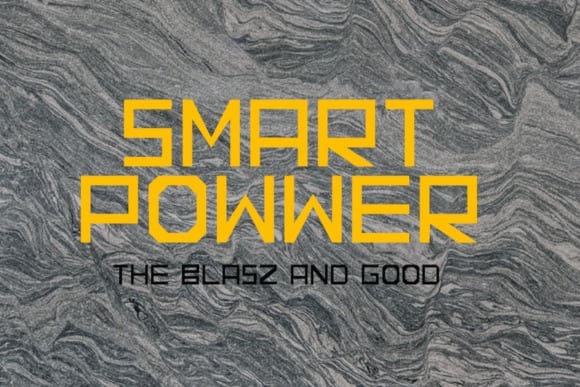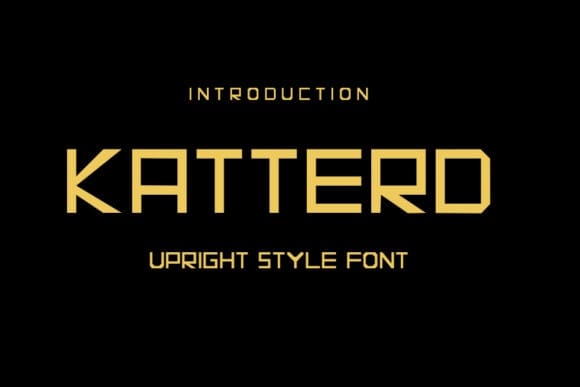
Katterd Font
Katterd Font is a strong display font. It will elevate a wide range of design projects to the highest level, be it branding, headings, wedding designs, invitations, signatures, logos, labels, and much more!